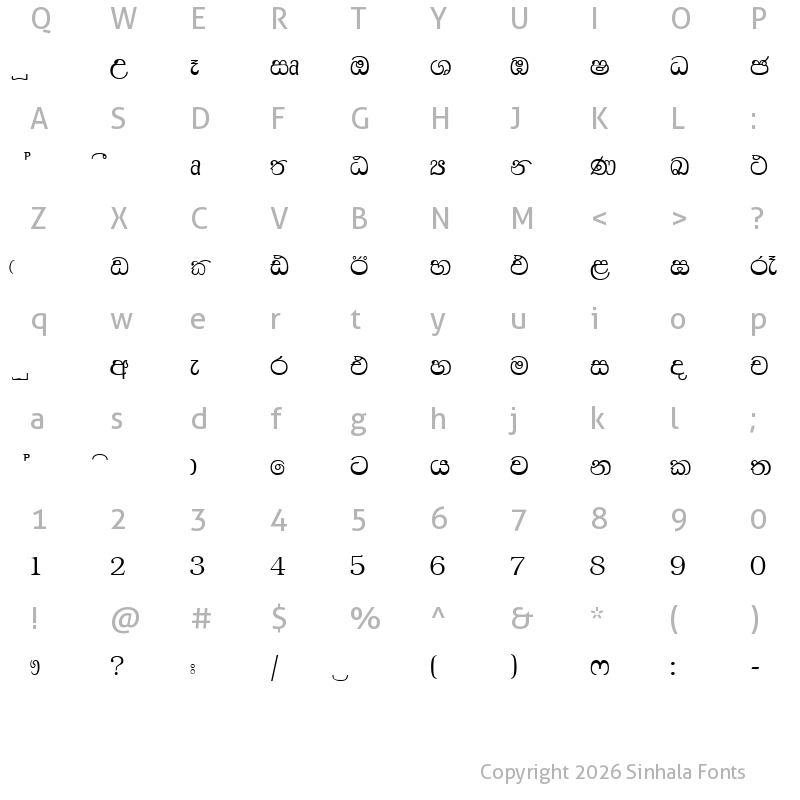
Web sinhala font is a lovely script font with a hint of traditional grotesque font styles. Web noto serif sinhala has multiple weights and widths, contains 645 glyphs, 11 opentype features, and supports 170 characters from 3 unicode blocks: Elakiri eke akuru box box.